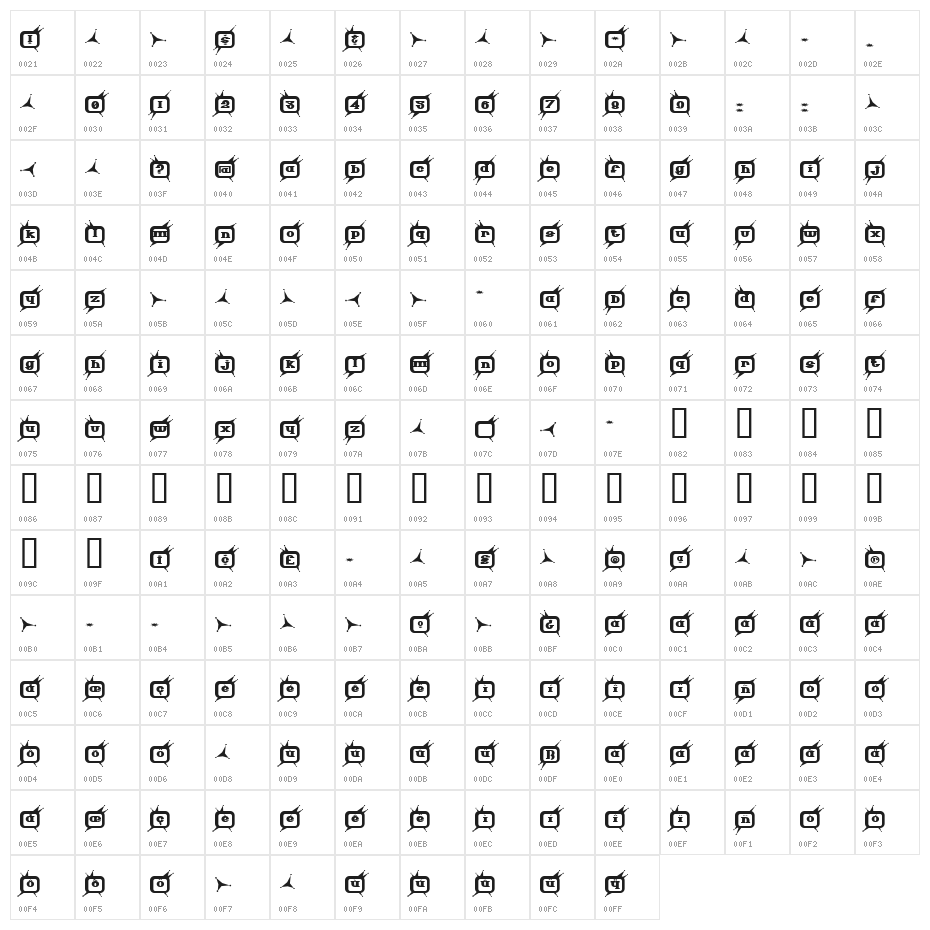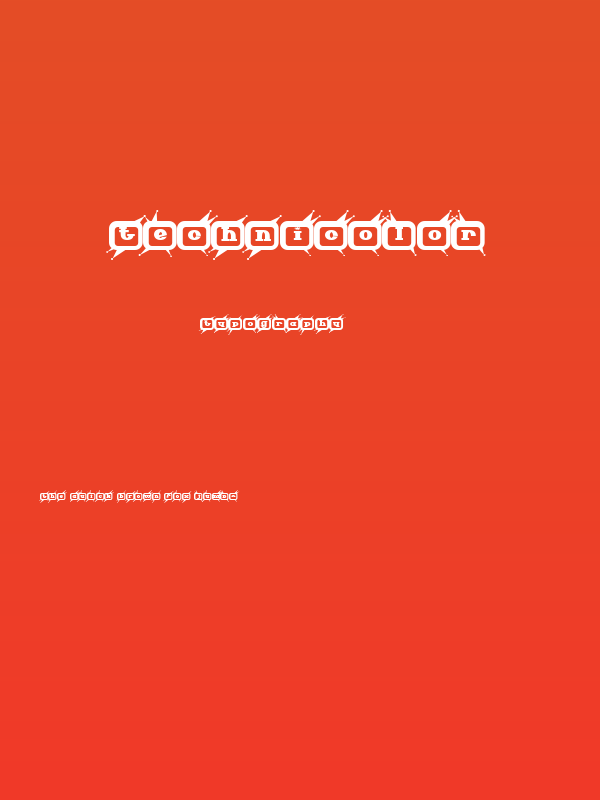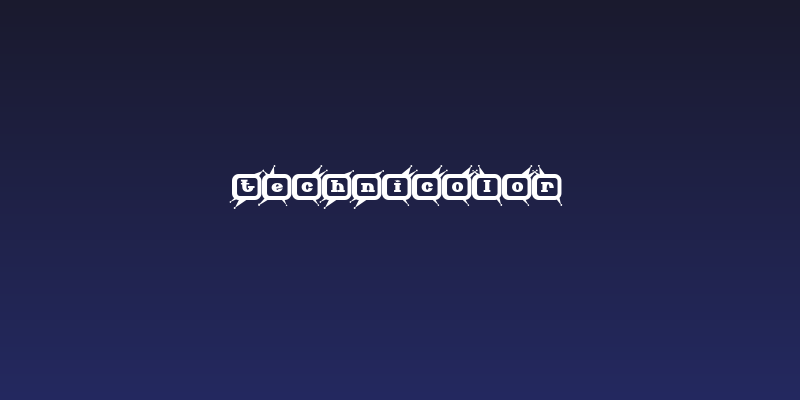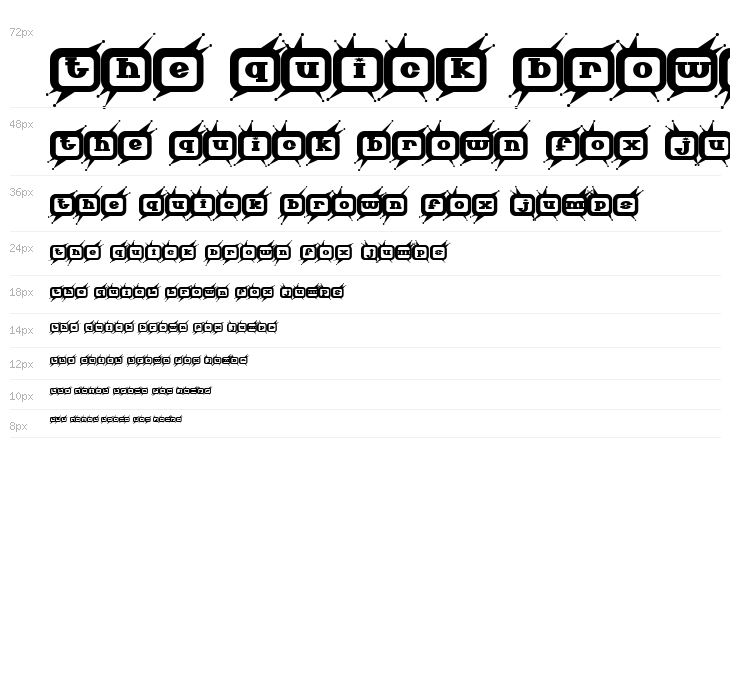
Technicolor Font
Technicolor Description
This font features a bold, playful design with each character enclosed in a rounded square, giving it a retro television screen appearance. The letters are thick and uniform, with a high contrast between the black outlines and the white interior, creating a striking visual impact. The unique addition of small, star-like embellishments at the corners of each square adds a whimsical touch. This font is highly decorative and stands out due to its unconventional style, making it suitable for eye-catching designs.
| Overall Style | Retro, Playful |
| Proposed Projects | Ideal for retro-themed posters, playful branding, children's book covers, or any project needing a bold, eye-catching typeface. |